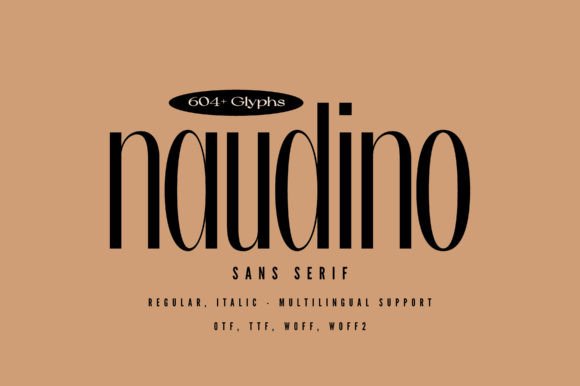
Journey into the realm of minimalist allure with Naudino, a sans serif font that captivates with its refined simplicity. Steeped in elegance, Naudino transforms your designs into timeless masterpieces, leaving an indelible mark on the hearts of your audience. Its sleek lines and contemporary flair infuse your work with a touch of sophistication, propelling it to new heights of visual appeal.
Experience the versatility of Naudino, a font that adapts seamlessly to a myriad of creative endeavors. Whether you're crafting an unforgettable logo, designing a user-friendly website, or creating packaging that exudes luxury, Naudino rises to the occasion, effortlessly enhancing your vision. Its adaptability knows no bounds, lending itself to an array of applications, from branding and marketing materials to social media graphics and beyond.
Envision your wedding invitations adorned with the graceful strokes of Naudino, conveying the essence of romance and timeless elegance. Let your words dance across the page, guided by the refined curves and delicate angles of this exquisite font, capturing the hearts of your loved ones. Naudino transforms your wedding stationery into cherished keepsakes, forever reminding you of the love and joy of your special day.
Immerse yourself in the boundless possibilities of Naudino, a font that ignites creativity and fuels your imagination. Its minimalist design empowers you to express your unique style with clarity and impact. Unveil a world of design possibilities and elevate your work to extraordinary heights with Naudino, the font that redefines minimalist sophistication.